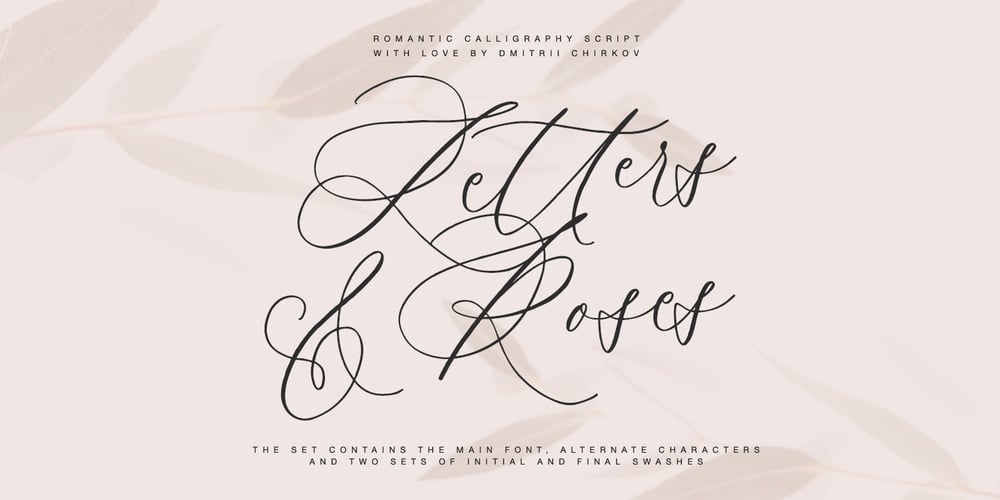
Letters and Roses Font Family was designed by Dmitrii Chirkov and published by Supfonts. Letters and Roses contains 2 styles and family package options. Letters & Roses it is a chic lettering font with exquisite accents. It is perfect for branding, wedding invitations and invitation cards and much more.It includes a full set of gorgeous uppercase and lowercase letters, numbers, a large selection of punctuation marks & ligaturesTest it out below to see how it could look for your next project!Includes: Regular Script Alt Script Swashes Script Latin languages support Uppercase and lowercase Numbers and punctuation Ligatures Check out my blog: https://www.instagram.com/di.zigner https://pinterest.com/dmitriychirkov7 Enjoy